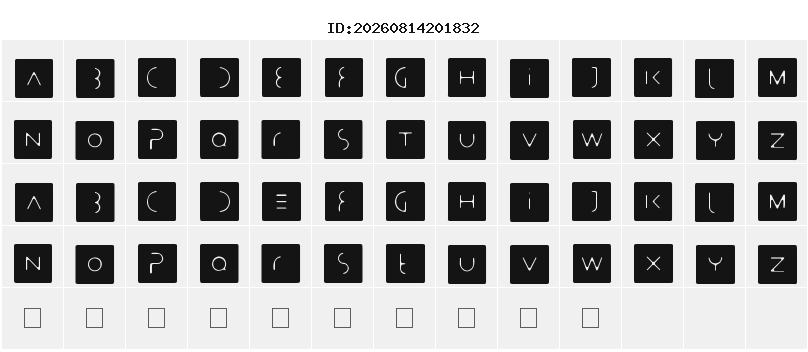
Stealthy Bastards Preview
About Stealthy Bastards.ttf
Stealthy Bastards.ttf is a modern, elegant sans-serif font designed for ultimate readability and visual harmony. Perfect for branding, headlines, web design, and print materials.